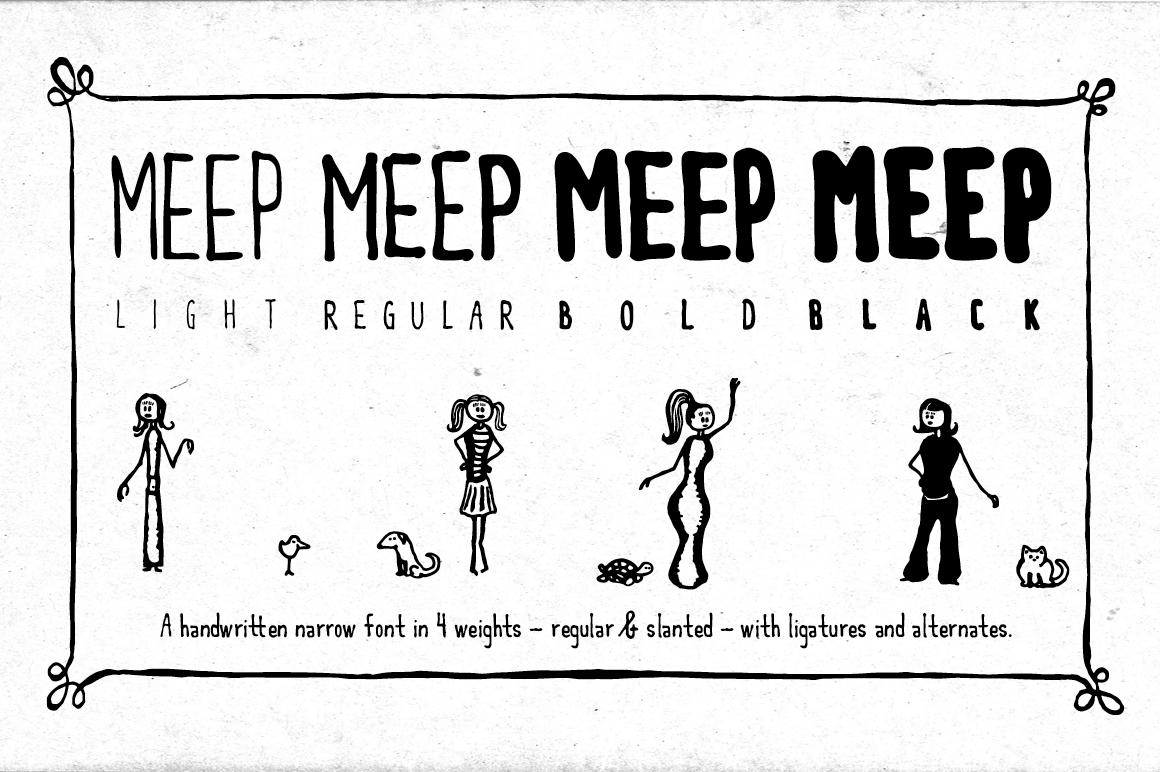
Meep Sisters - 8 fonts
What to do today? Meep? Meep! Meep! Meep! They all agreed.
Meet the Meep sisters - a handwritten narrow font in 4 weights - regular & slanted with common- and many double letter ligatures for a natural & varied hand drawn look! Go create! Meep!